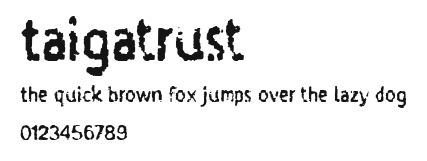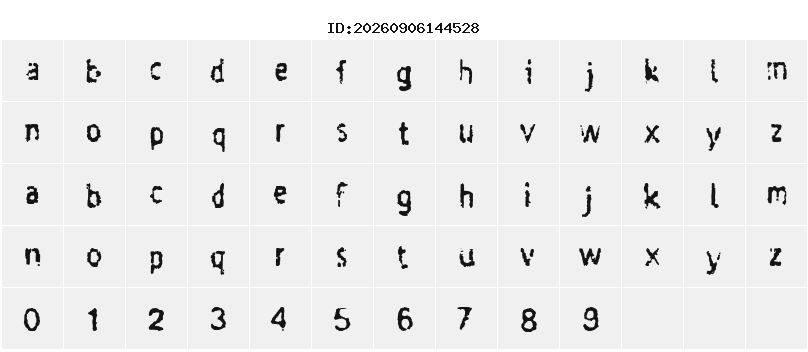
Taigatrust Preview
• Font Name: Taigatrust
• Full Font Name: Taigatrust
• PostScript Name: Taigatrust
About Taigatrust.ttf
Taigatrust.ttf is a modern, elegant sans-serif font designed for ultimate readability and visual harmony. Perfect for branding, headlines, web design, and print materials.